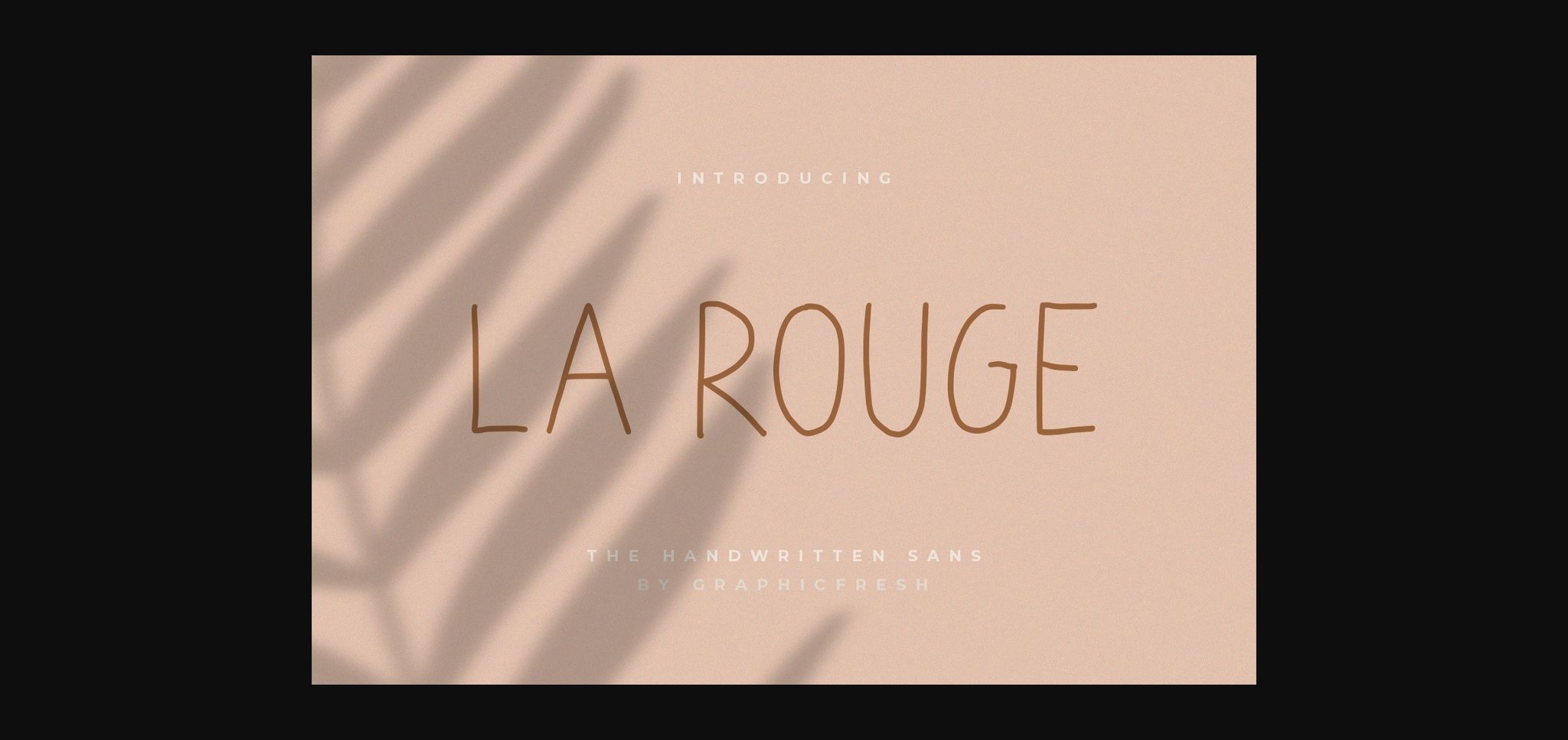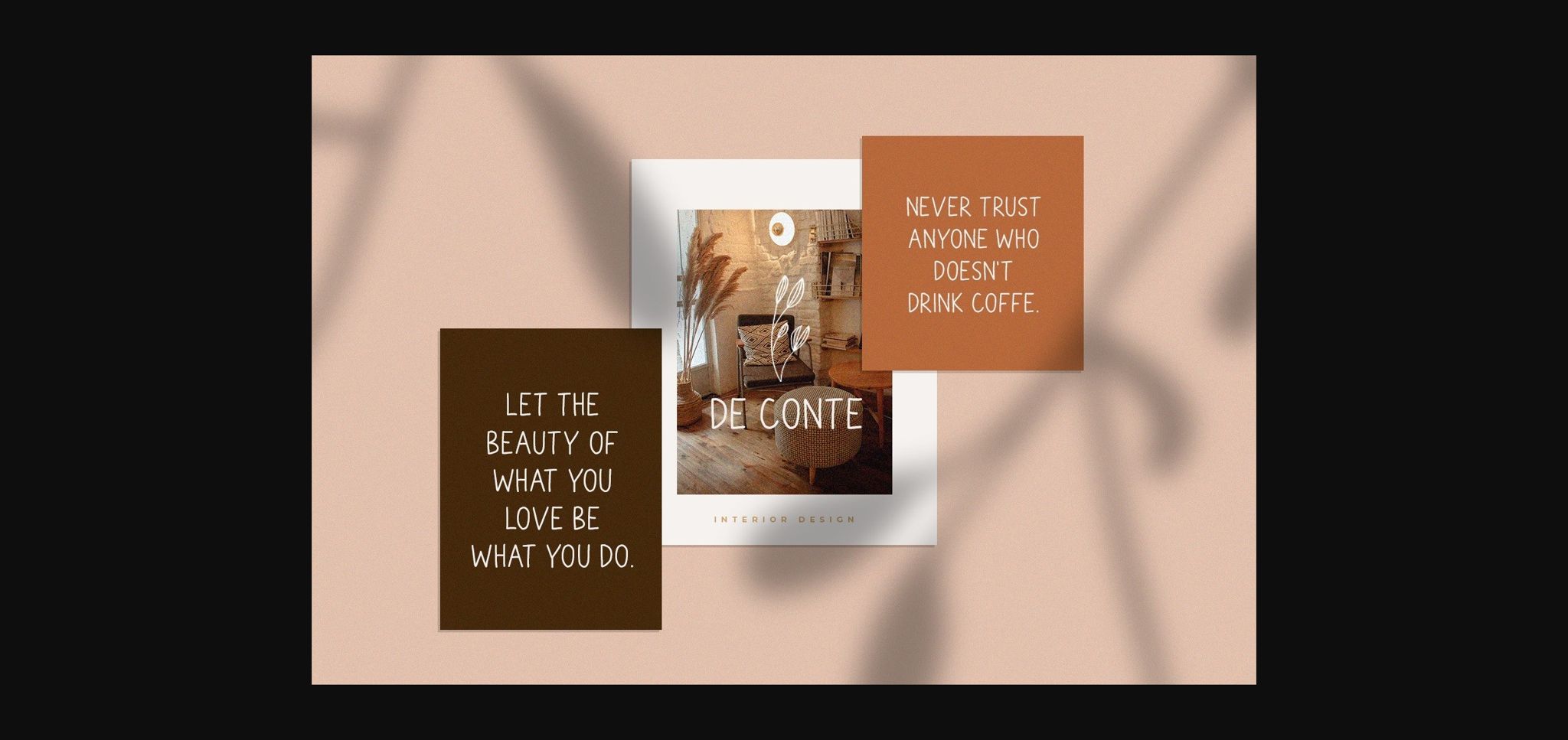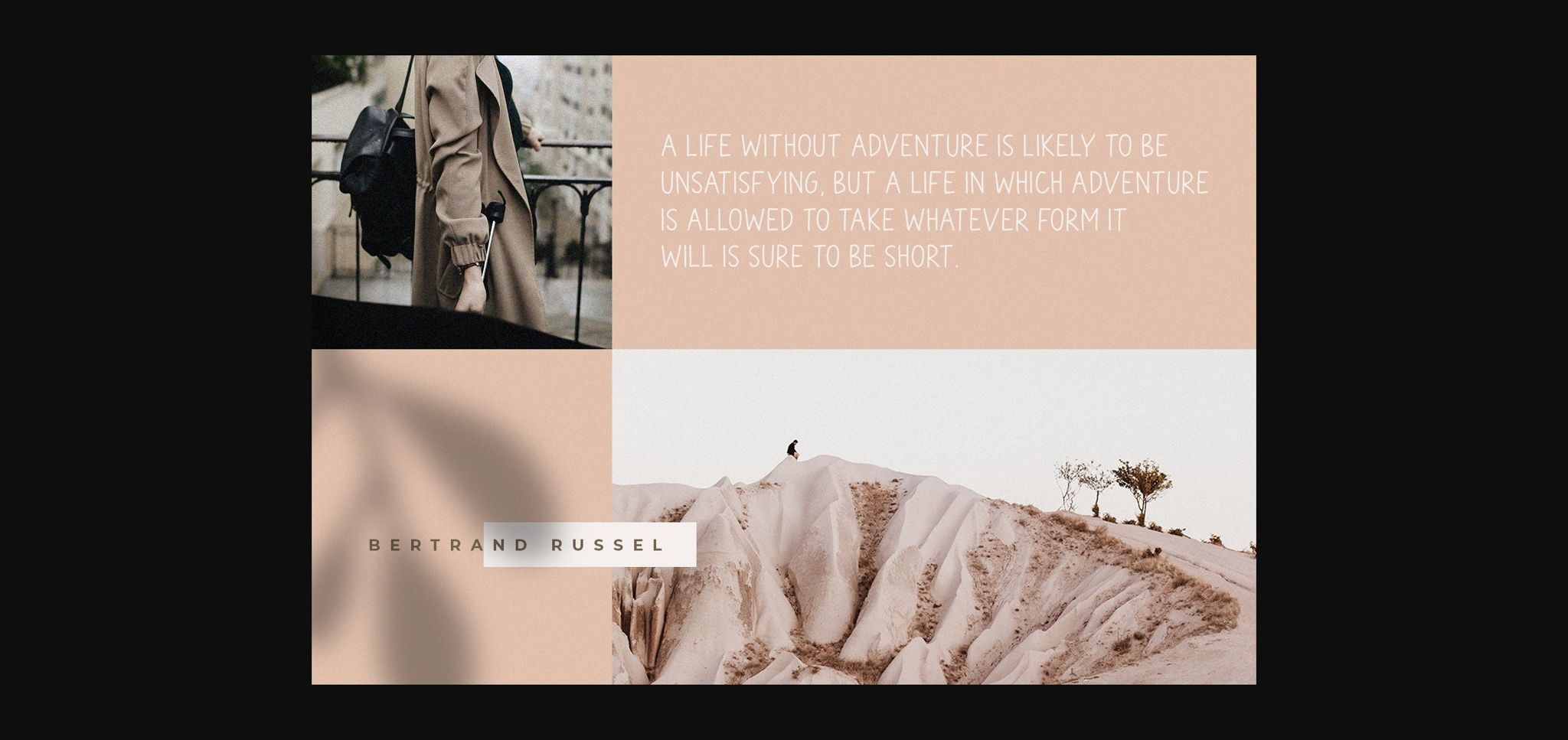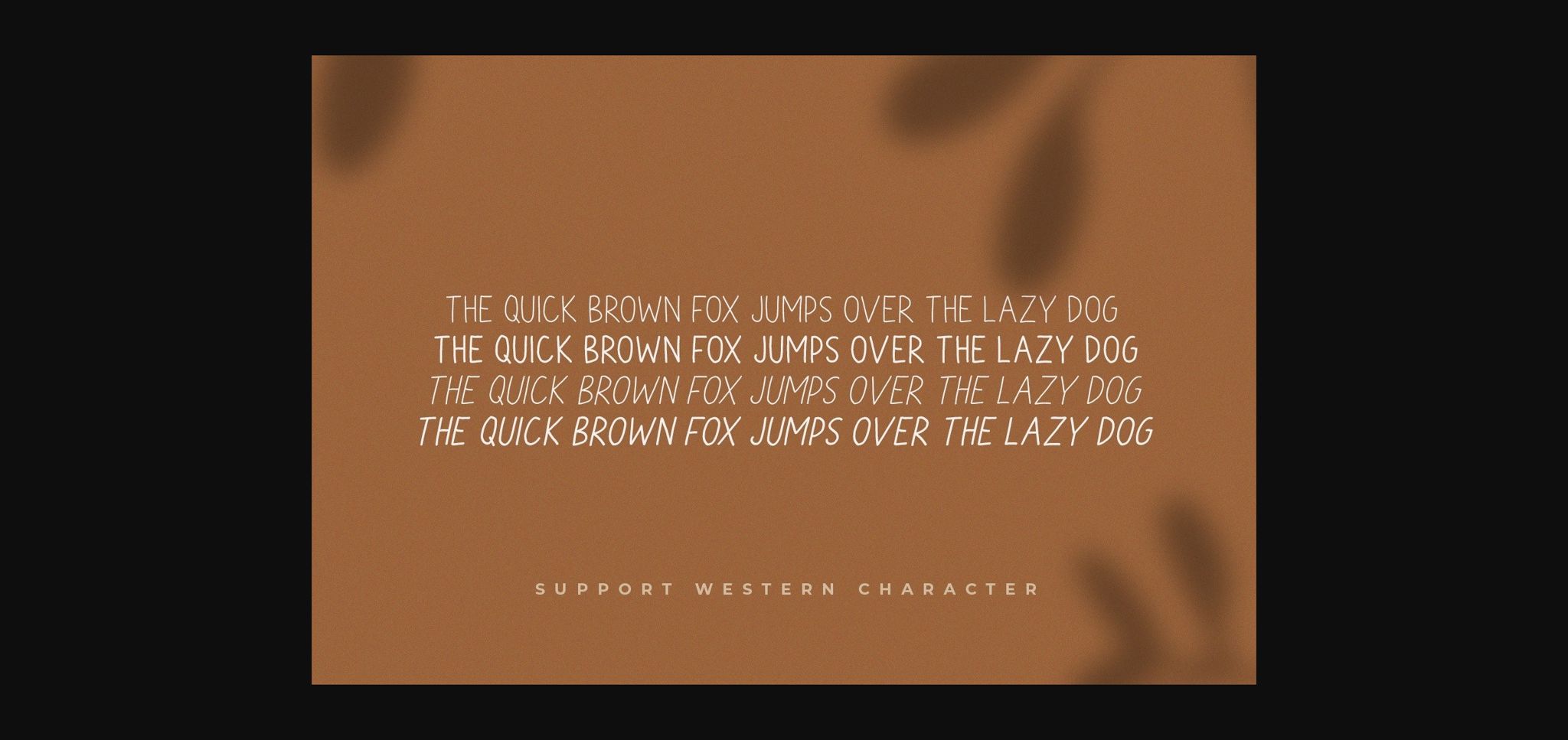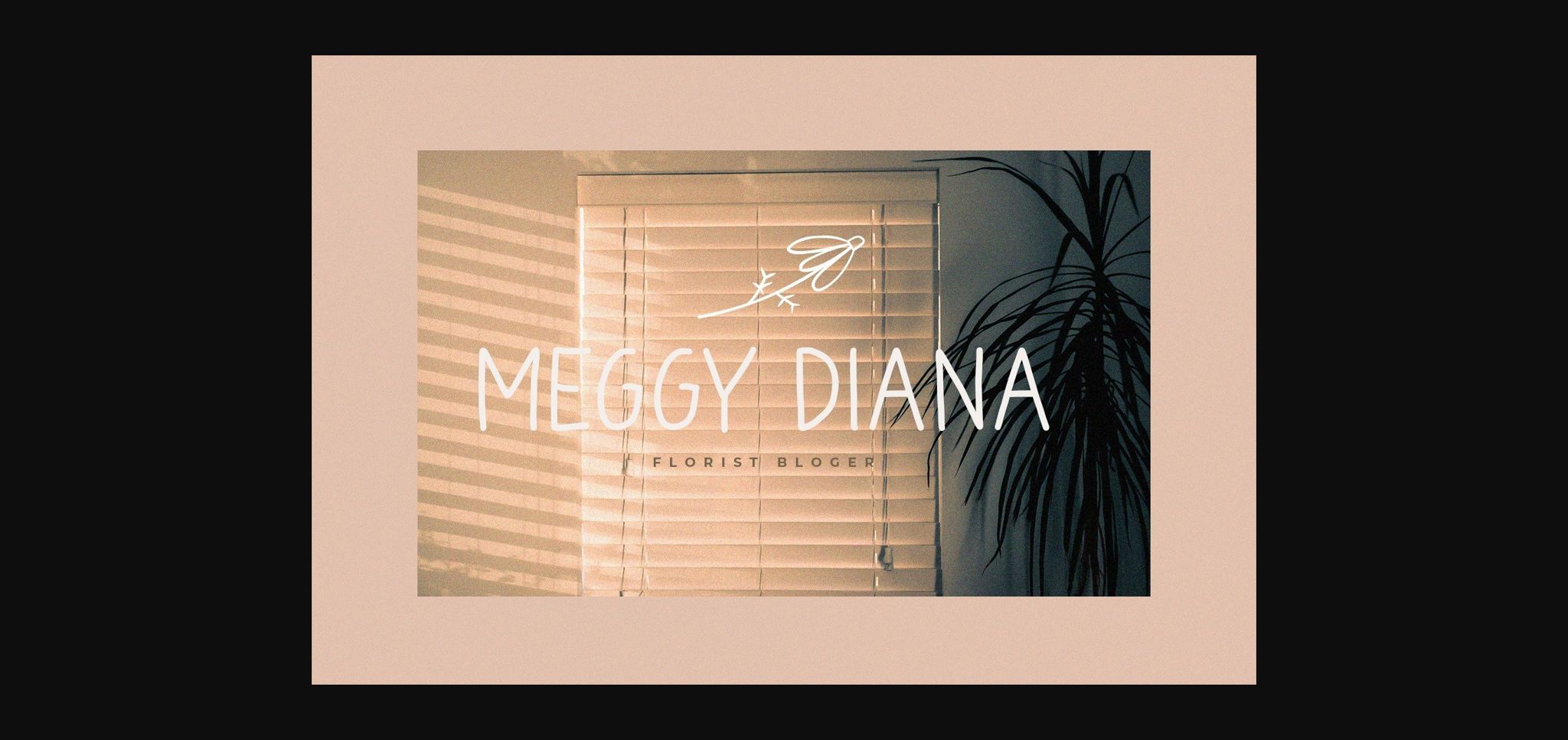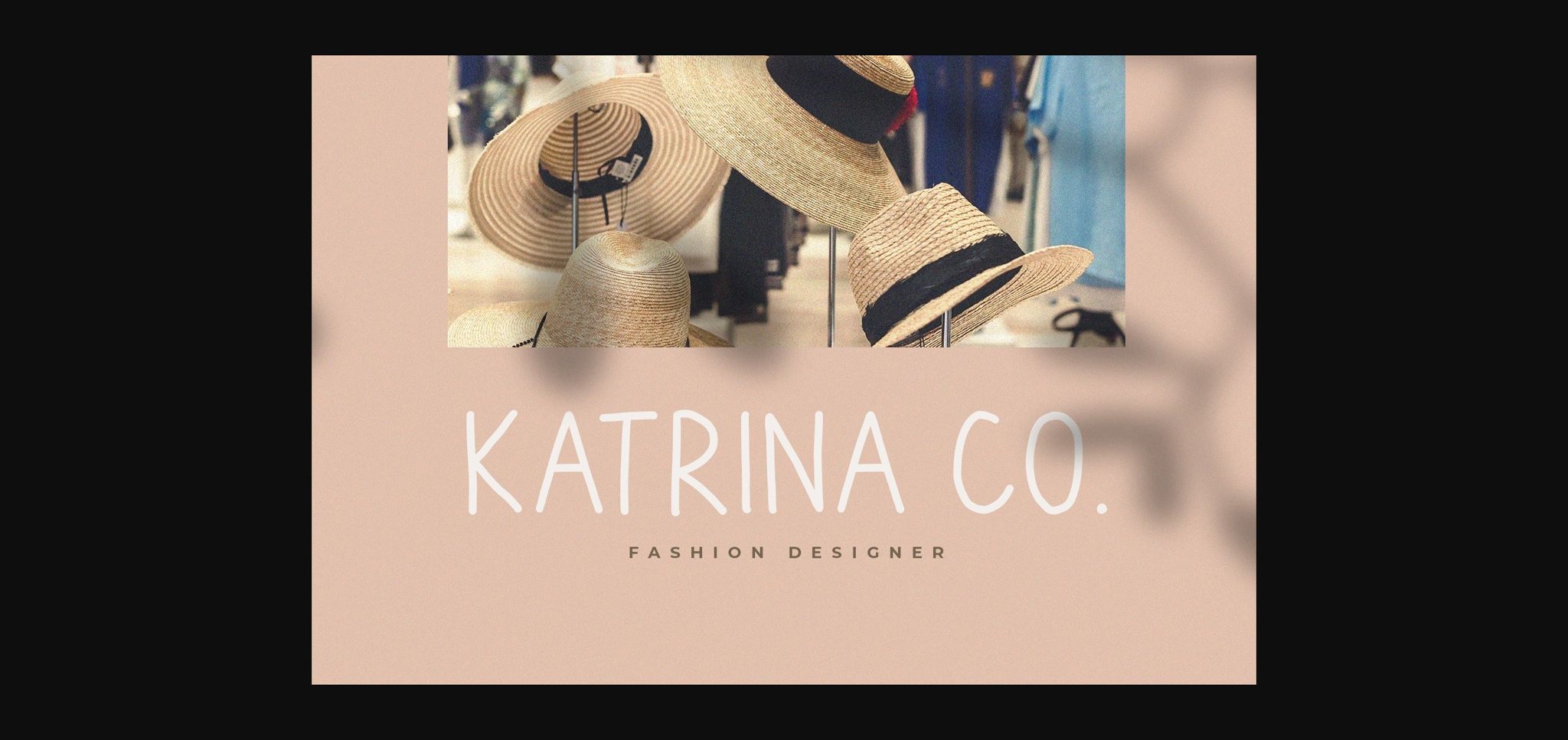
La Rouge Font
About La Rouge Font
La Rouge is a classic and delicate sans serif font. It is ideal for a wide variety of projects, from beautiful stationery to amazing logos.